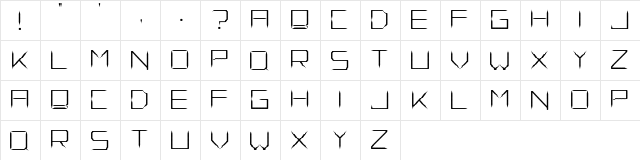
Fade Away Regular
Design Context for Fade Away Typeface
Fade Away is a composed and adaptable typeface that performs quietly and consistently across a wide range of design contexts.